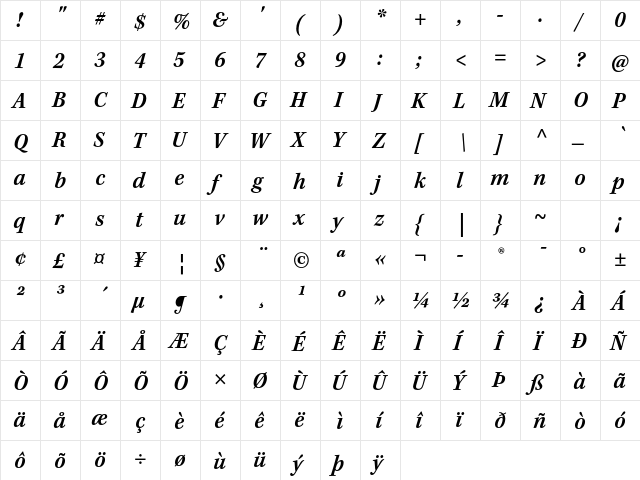
Kepler Std Semibold Semicondensed Italic Caption Font Preview
| Designer | Robert Slimbach |
Design Context for Kepler Std Typeface
Kepler Std is a composed and adaptable typeface that performs quietly and consistently across a wide range of design contexts. The slanted form adds forward momentum and visual energy. The heavy weight commands attention and anchors typographic hierarchies. The condensed width makes it efficient for tight spaces without sacrificing legibility.
Pro Tip: Use Kepler Std for emphasis, pull quotes, and subheadings where its slanted energy can add rhythm to the layout.